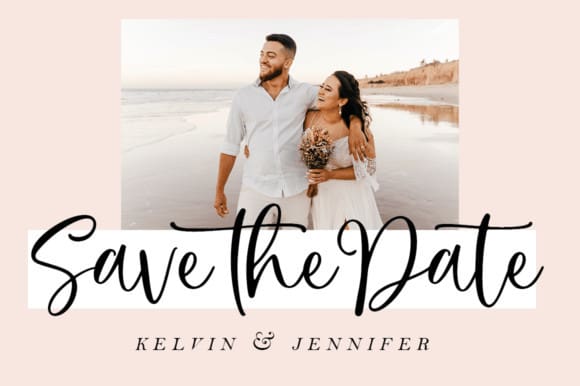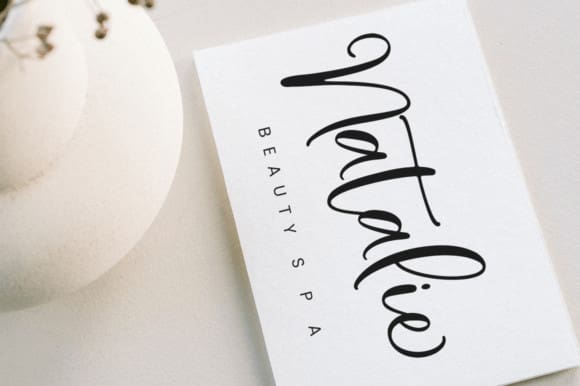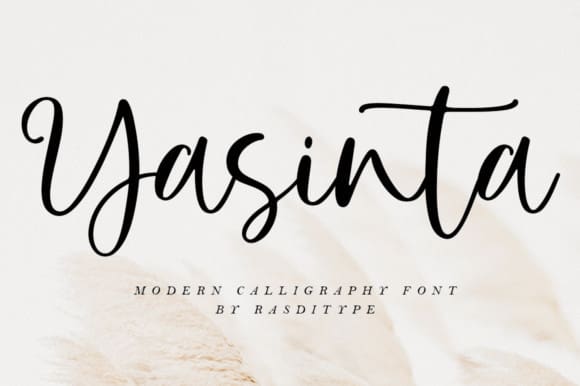
Yasinta Script Font
Yasinta Script Font is a beautiful handwritten font ideal for logos, wedding stationery, photography watermarks, modern websites, and more. Fall in love with its incredibly distinct and timeless style, and use it to create spectacular designs!